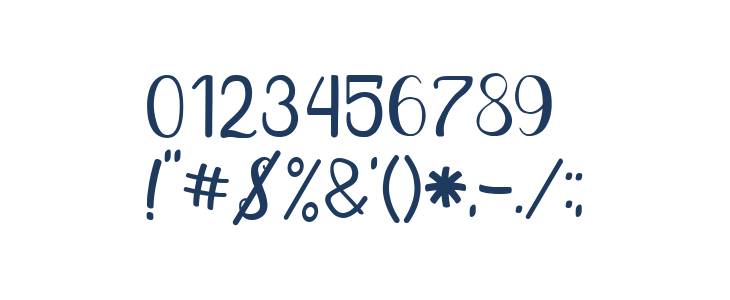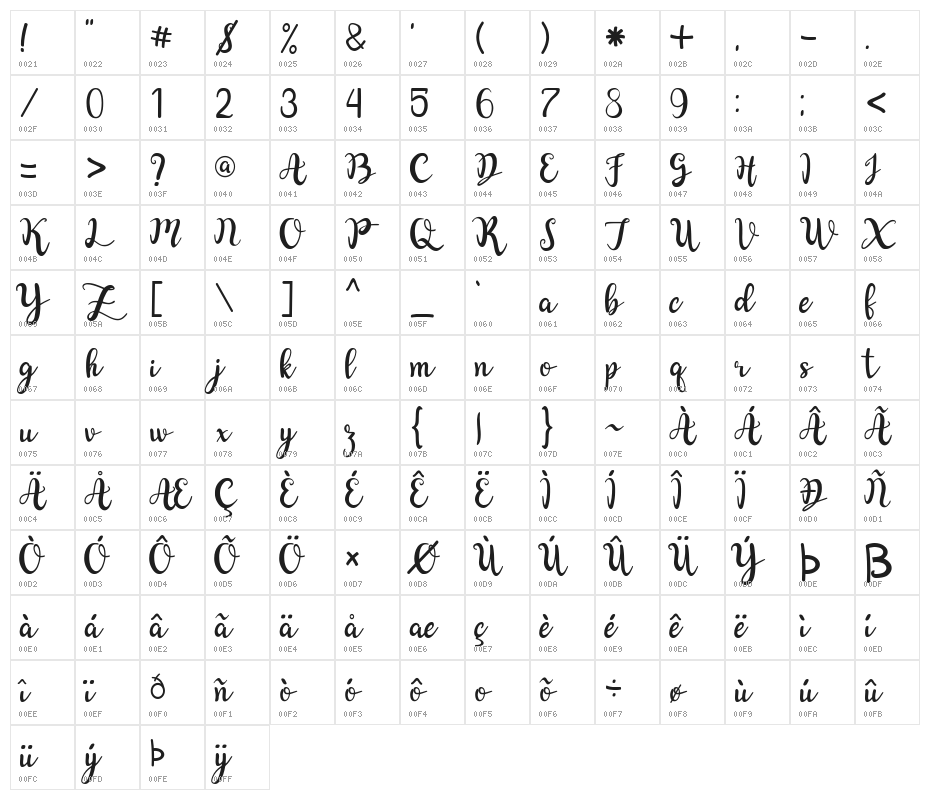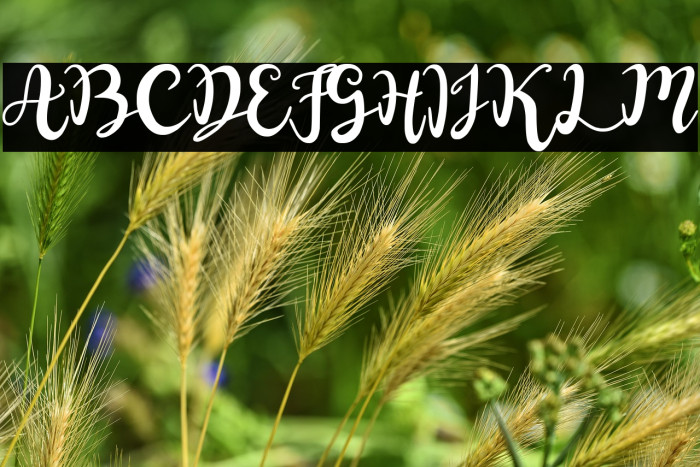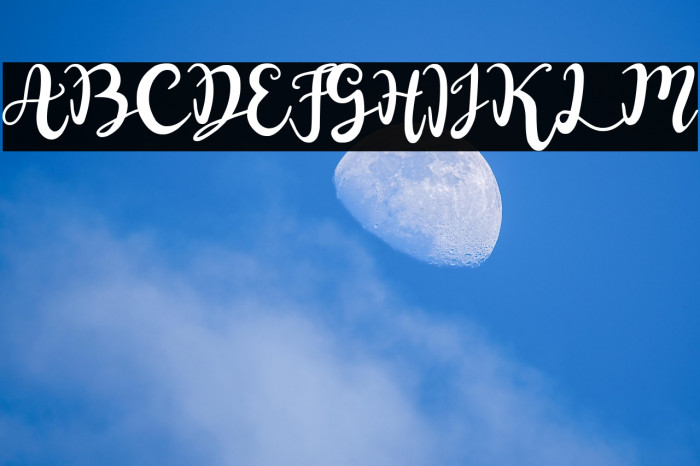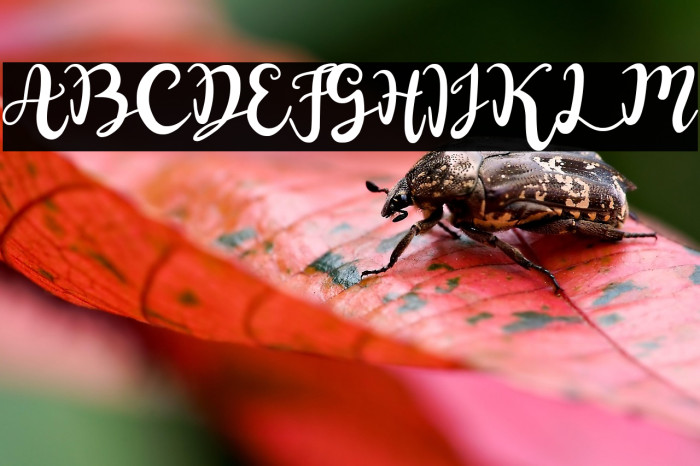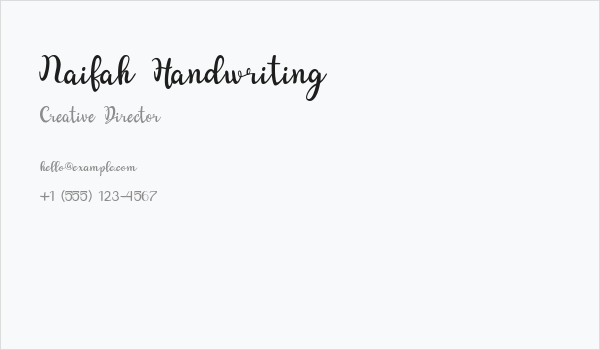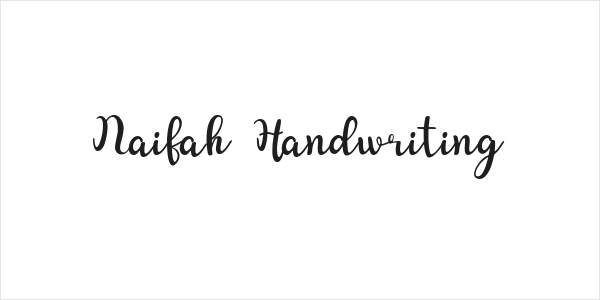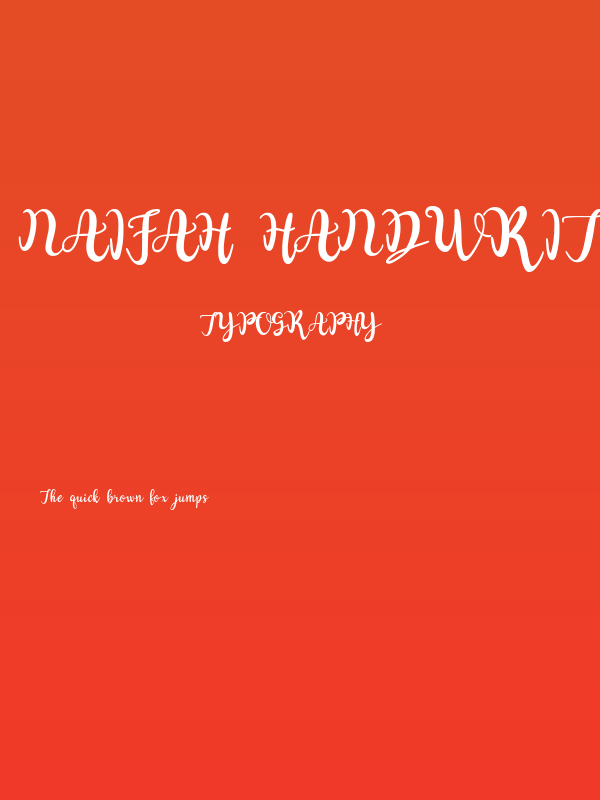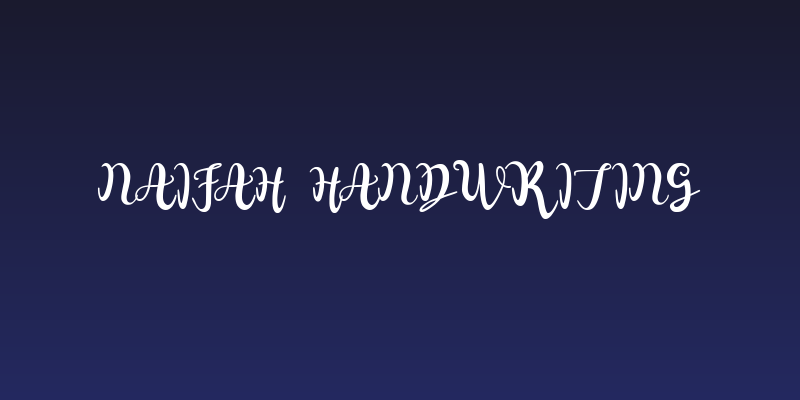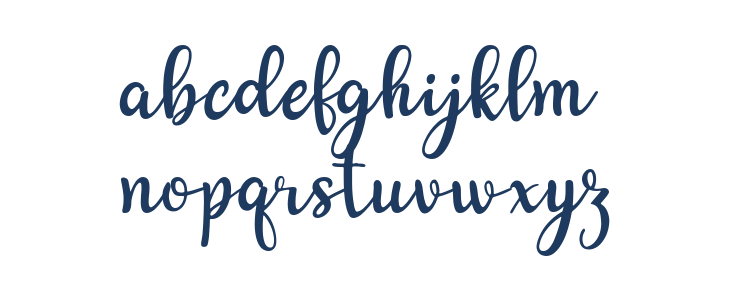
Naifah Handwriting Font
Naifah Handwriting Description
This font exudes a playful and elegant handwritten style, characterized by its fluid and connected letterforms. The uppercase letters are bold and expressive, with a slight slant that adds a dynamic feel. The lowercase letters maintain a consistent flow, enhancing readability while retaining a personal touch. Numbers are clear and well-proportioned, matching the overall aesthetic. Special characters are thoughtfully designed, integrating seamlessly with the alphabet. The font's strokes vary in thickness, providing a medium contrast that adds depth and interest without compromising clarity.